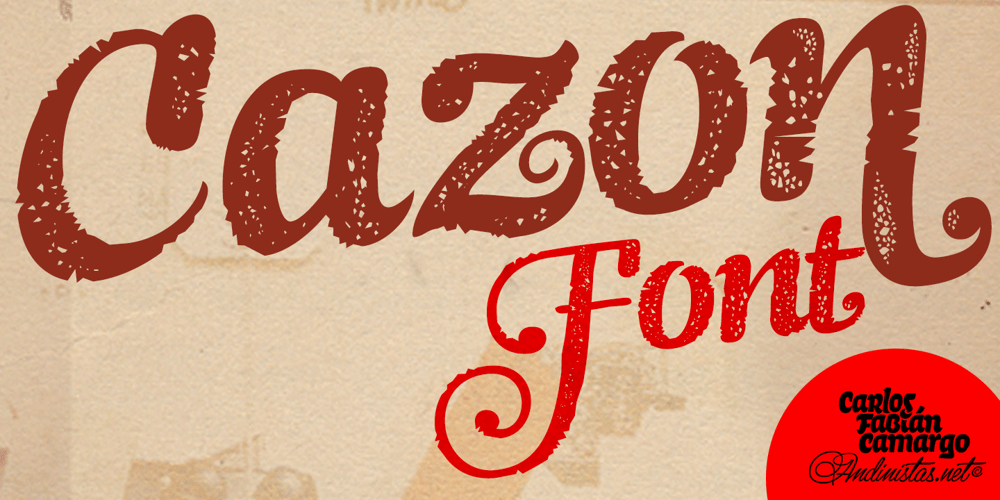
Cazon
Cazon font
Cazon Font Family was designed by Carlos Fabián Camargo Guerrero and published by Andinistas. Cazon contains 6 styles and family package options. Cazon is a font family designed by Carlos Fabian Camargo. It has 7 fonts inspired by typical signs drawn on the boards of the popular market of La Guaira town in Caracas, Venezuela. Is a suite of compatible hand-drawn script and display faces, with a load of shadow effects, banners, dingbats and catchwords thrown in for good measure. Taken as a whole, the family exudes warmth and a cozy, homely shabbiness — each style also works well individually. This collection will be very much at home on posters, personal stationery, book covers and magazine layouts. The cazón is a shark used in Venezuela to prepare empanadas and arepas.